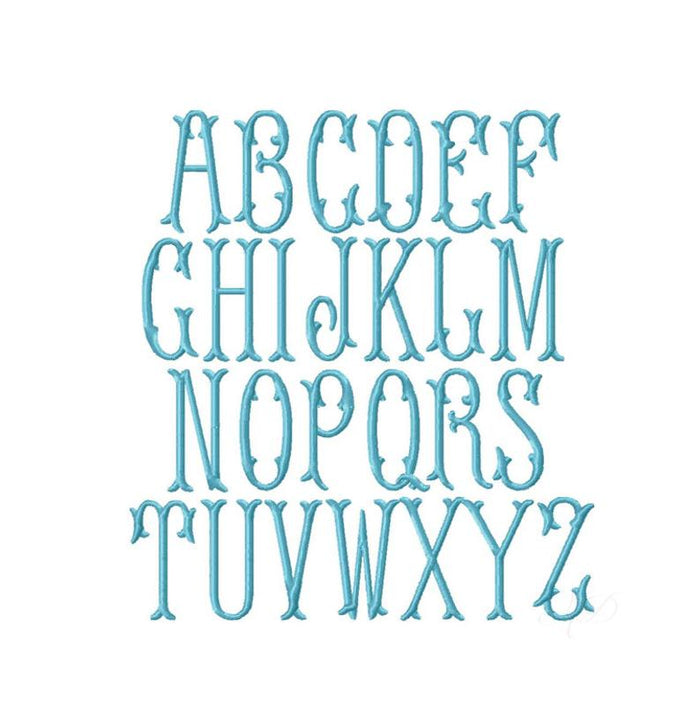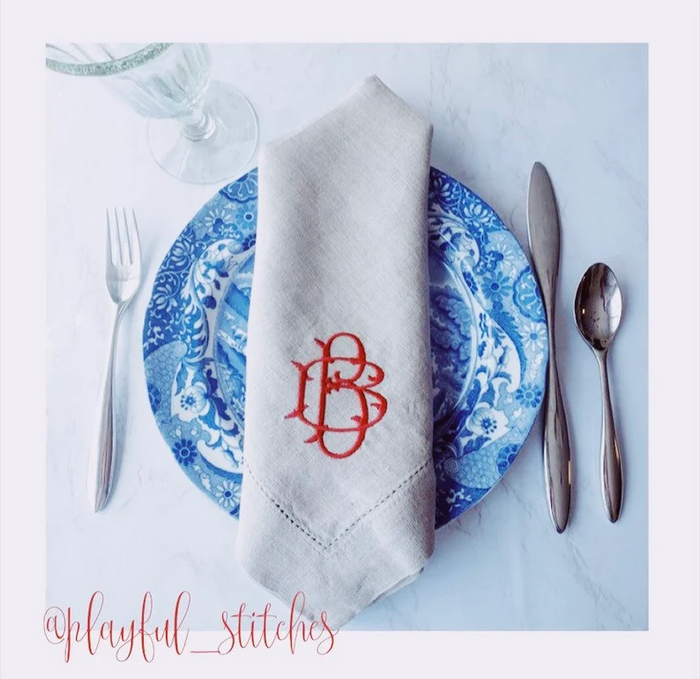
Emmaline Bold Satin Stitch Font Small
Elevate your embroidery projects with the Emmaline Bold Satin Stitch Font, specifically crafted for materials with a higher pile or softer texture. Perfect for monogramming, this font set includes both tall and wide upper-case letters, allowing for a complete 26-letter monogram experience.
Designed for crafters and DIY enthusiasts, this bold font is ideal for personalizing blankets, pillows, and home decor items. Whether you are a seasoned embroiderer or a beginner, enhancing your projects has never been easier!